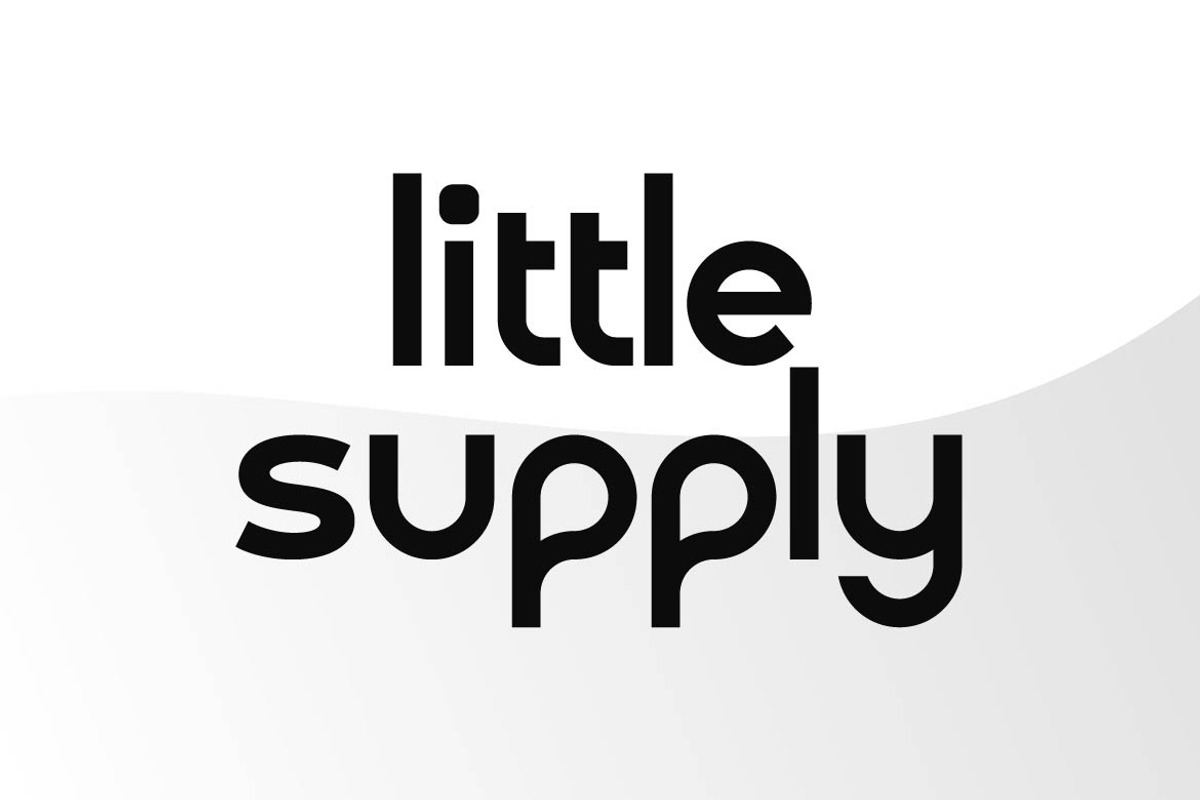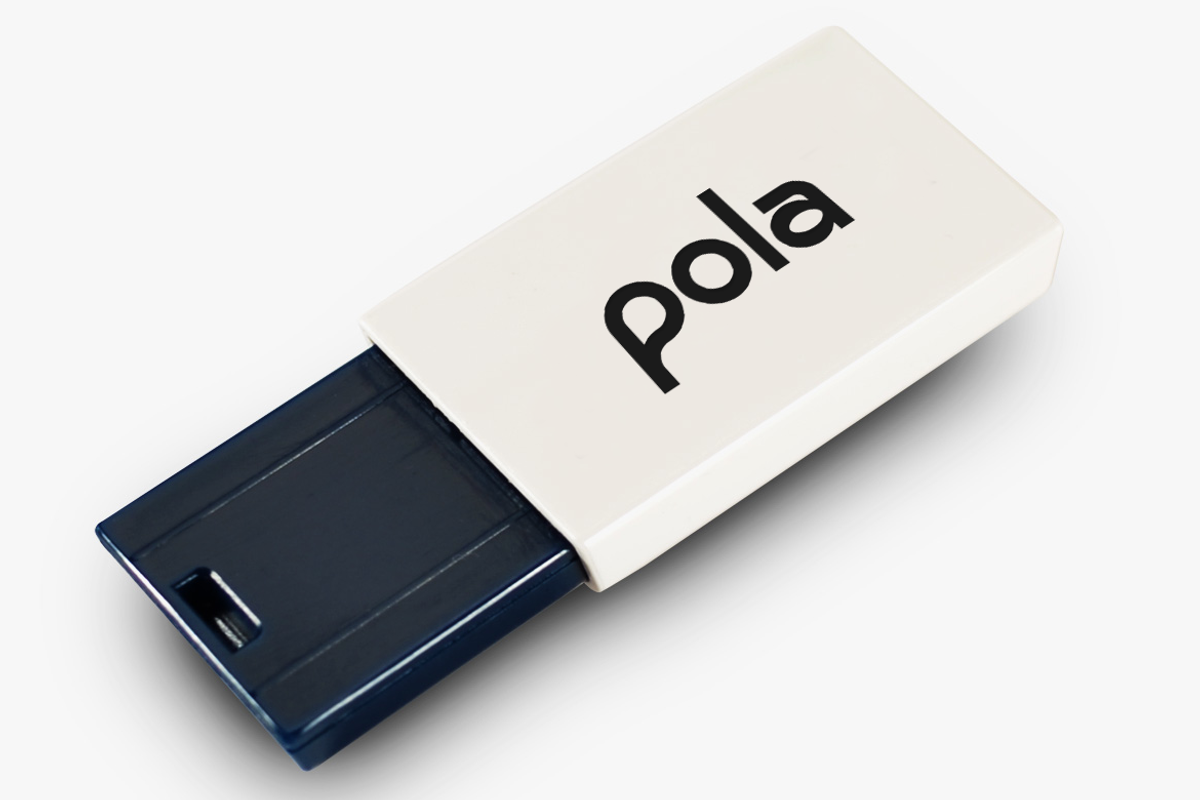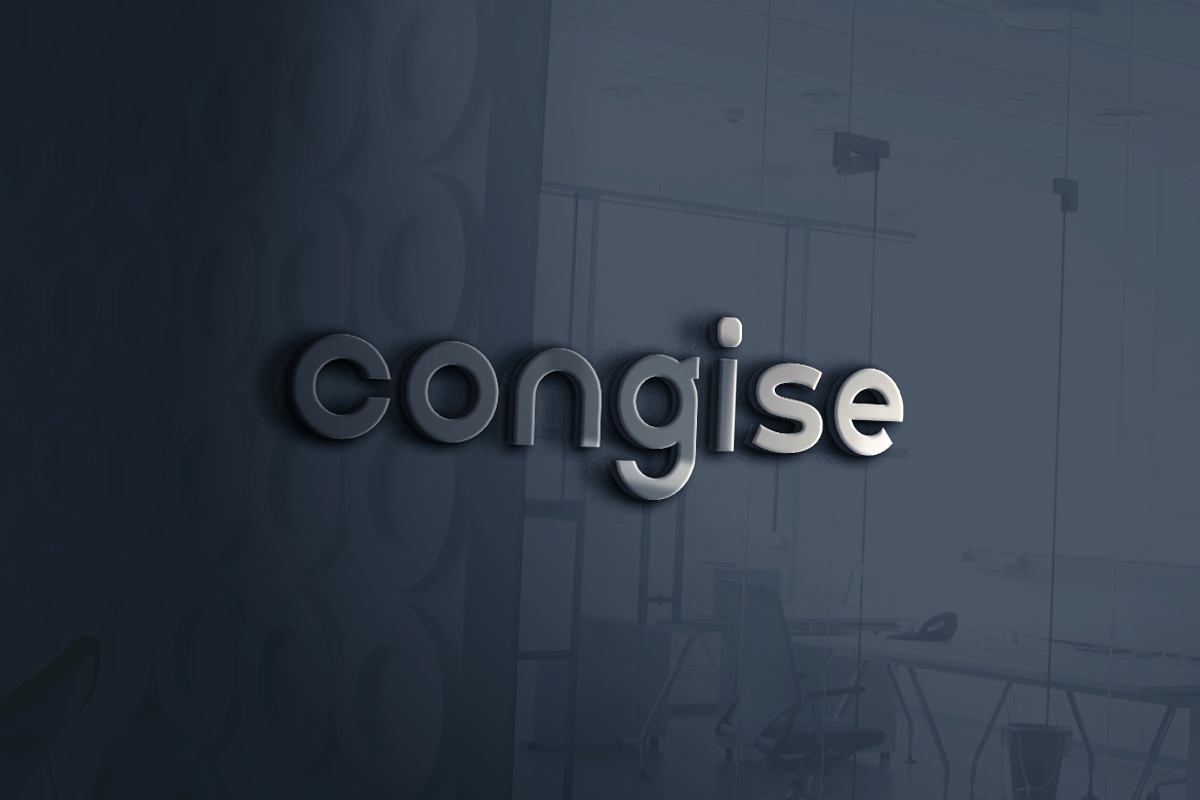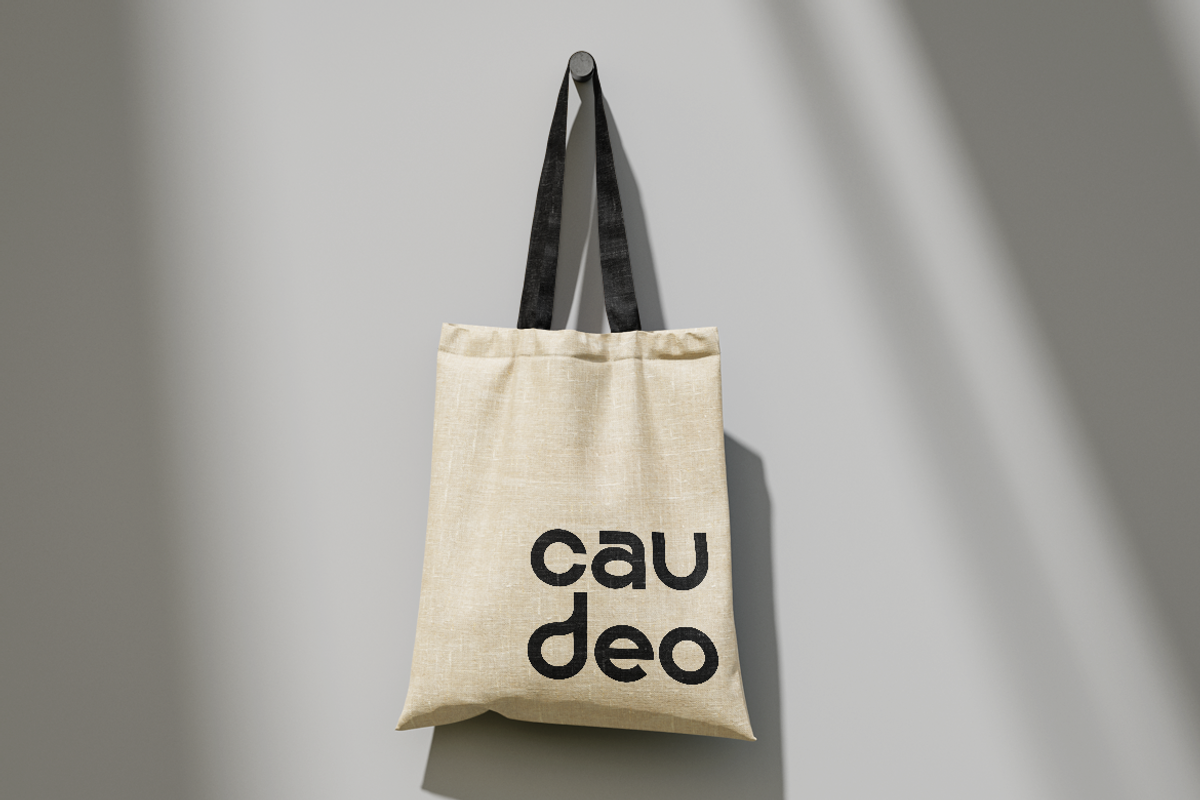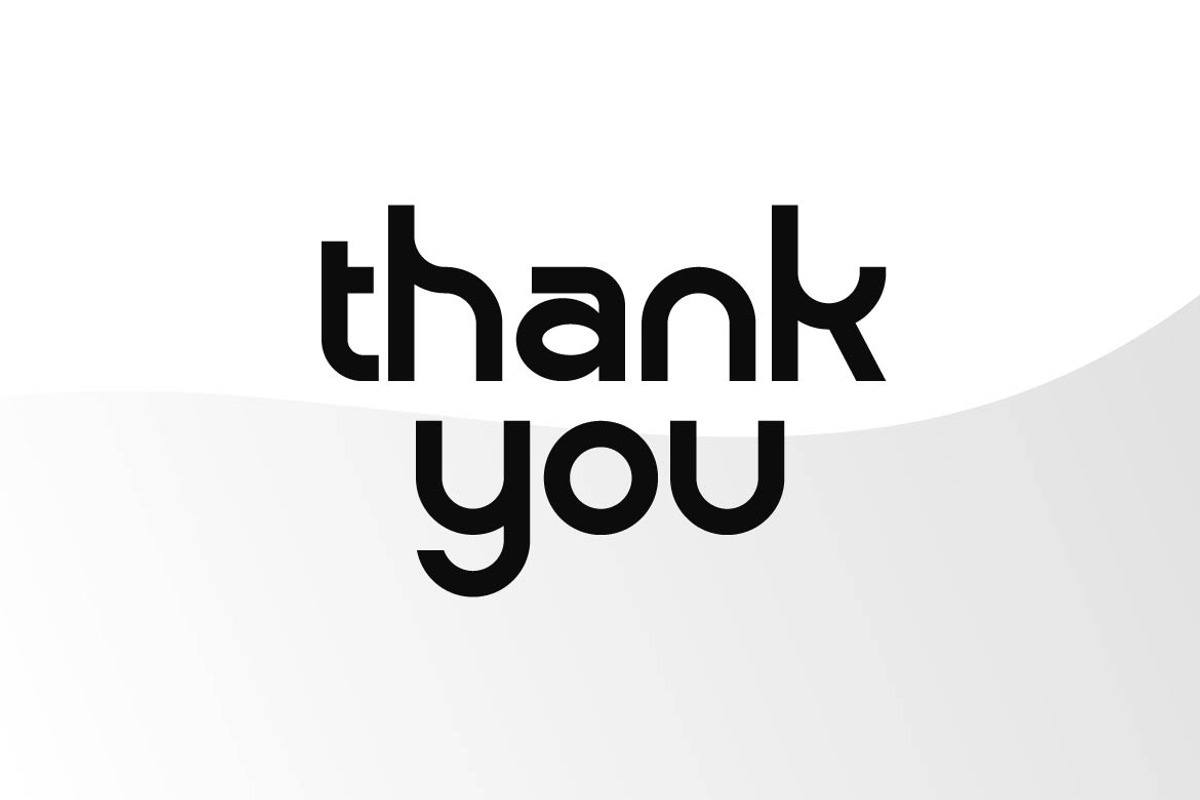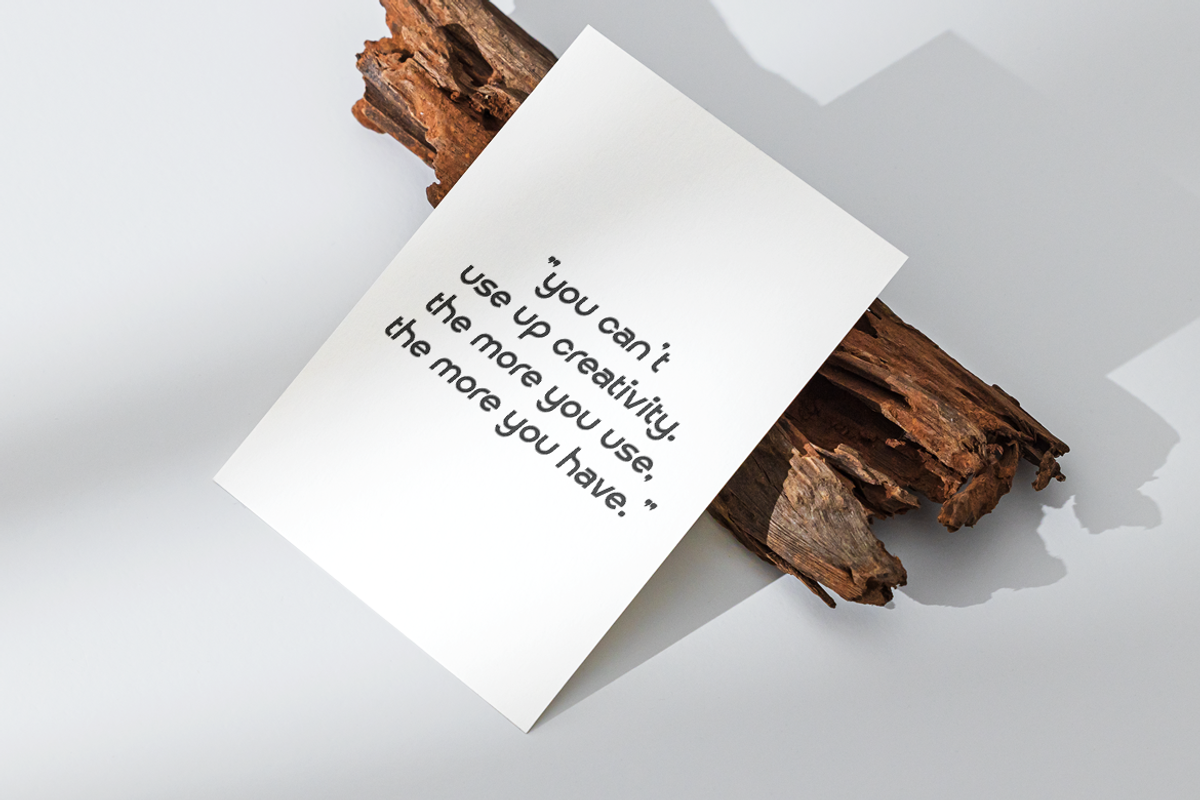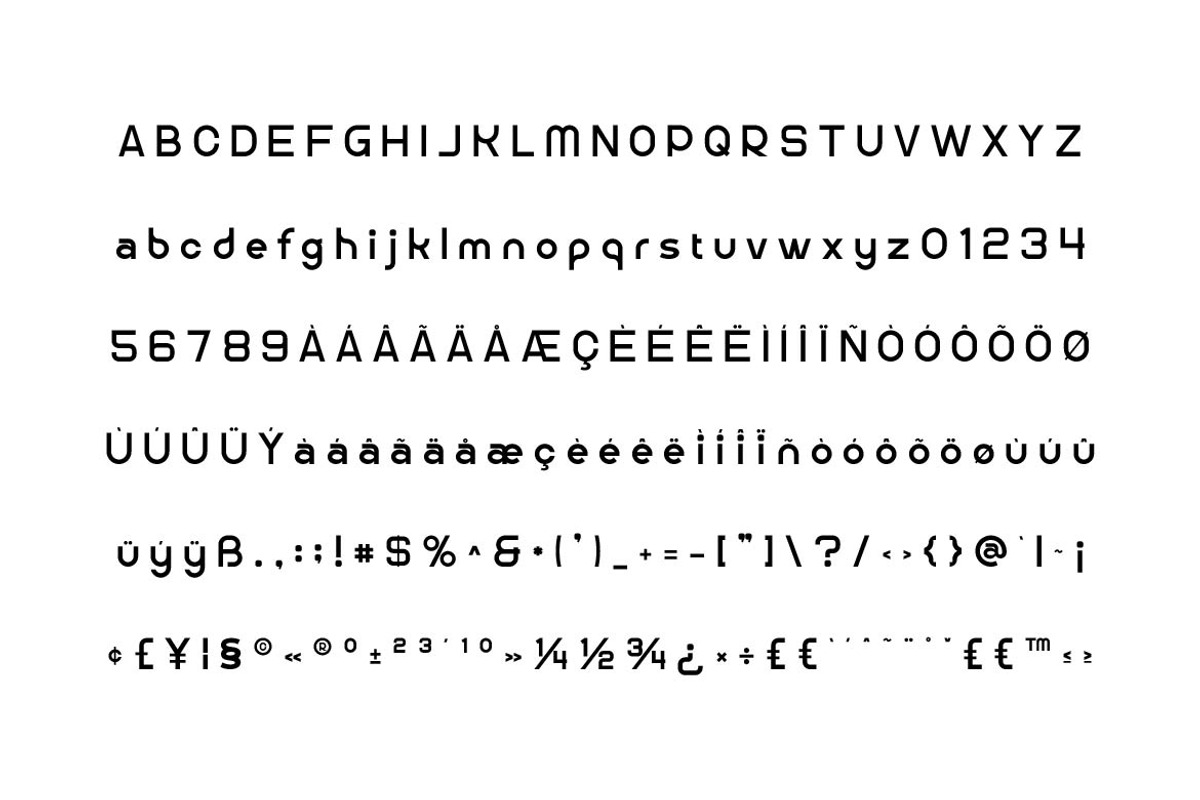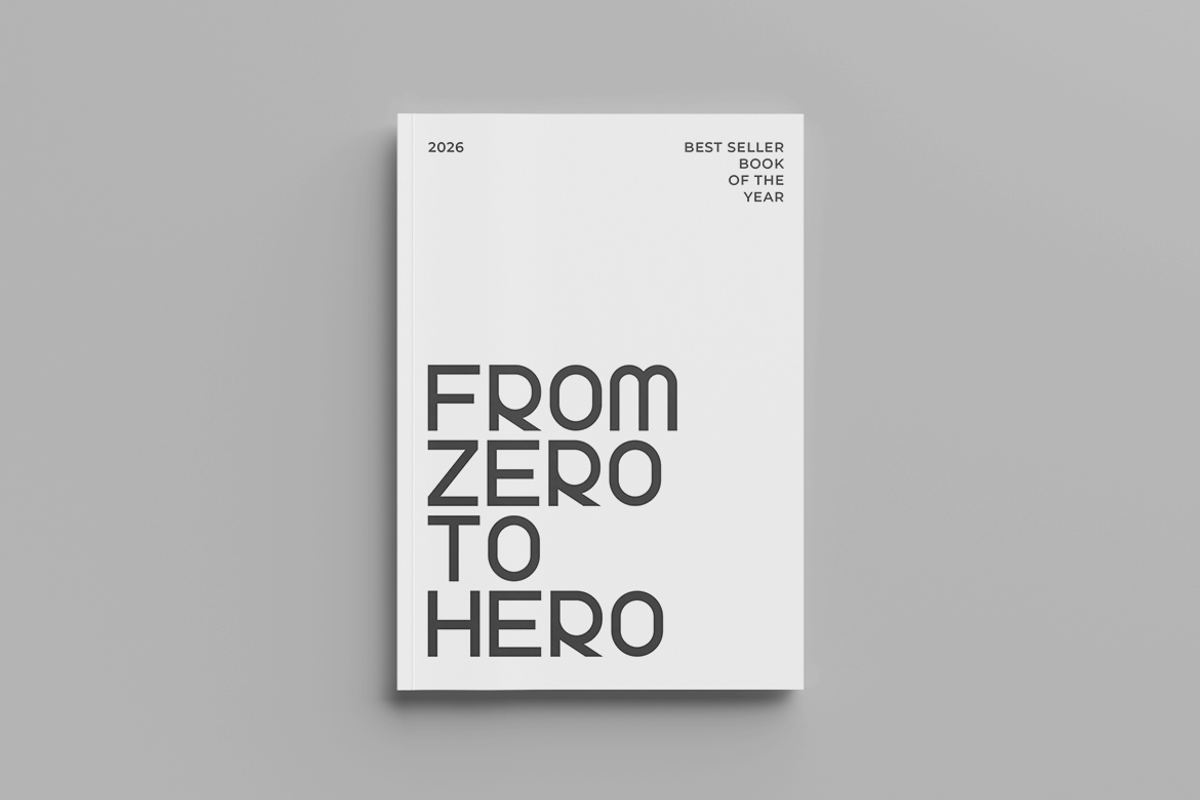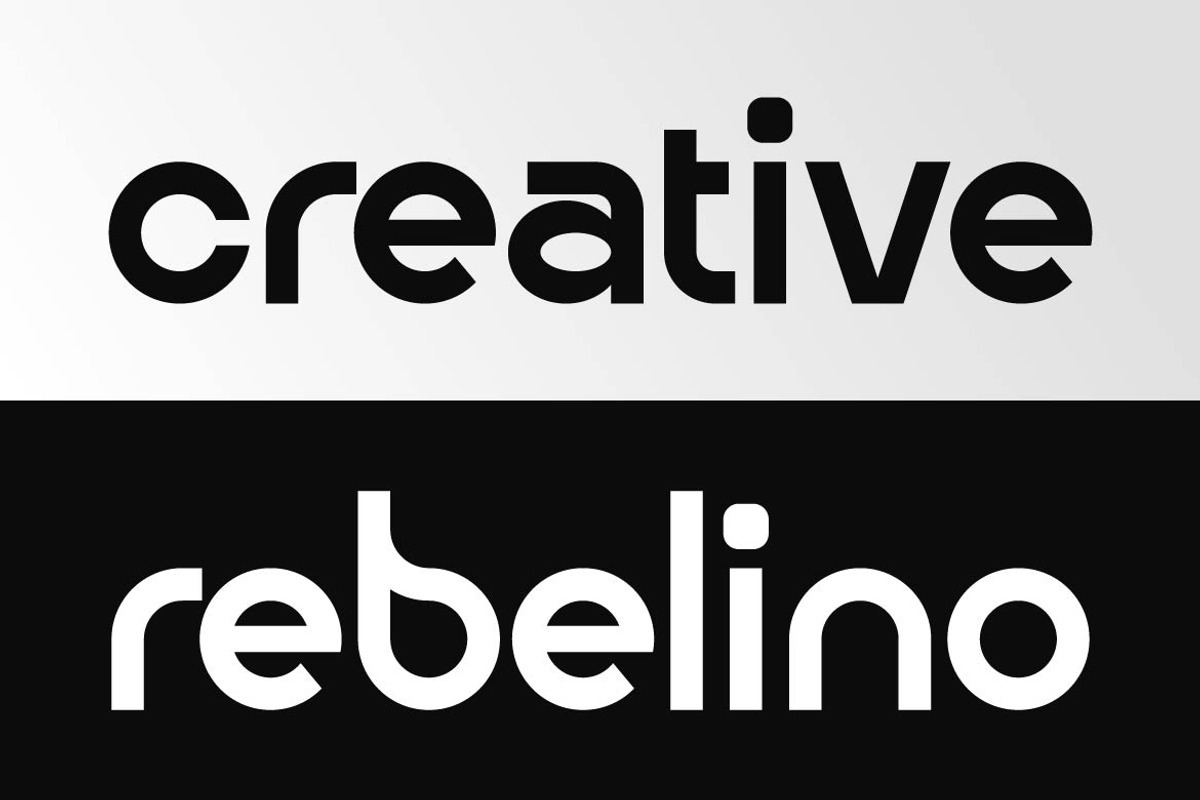
Little Supply – Display Logo Sans
Little Supply is a modern display logo sans font crafted for creative branding and stylish visual identity. Featuring clean letterforms, balanced proportions, and a contemporary aesthetic, Little Supply delivers a fresh and memorable typographic style perfect for standout logo design.